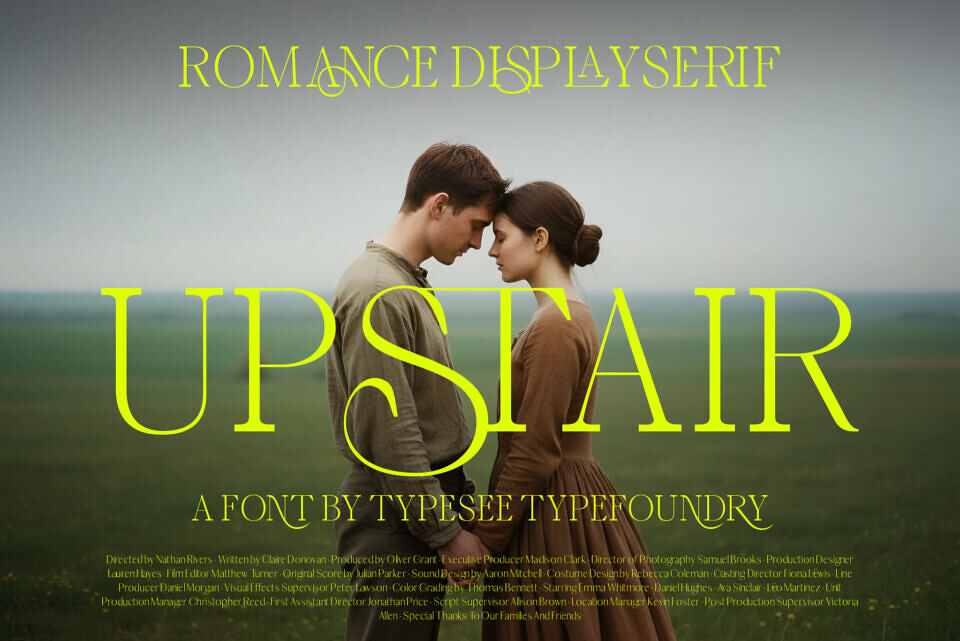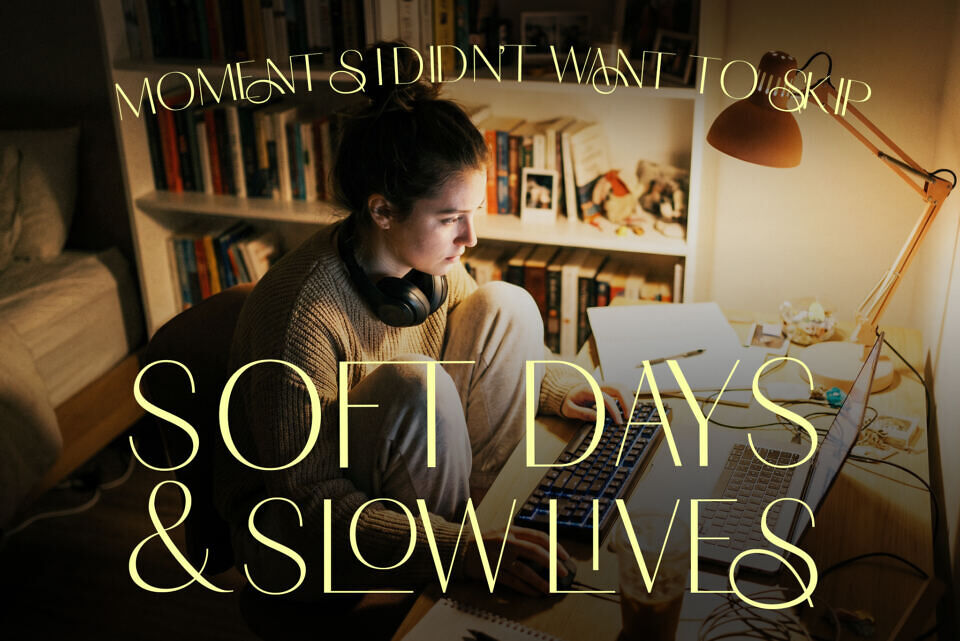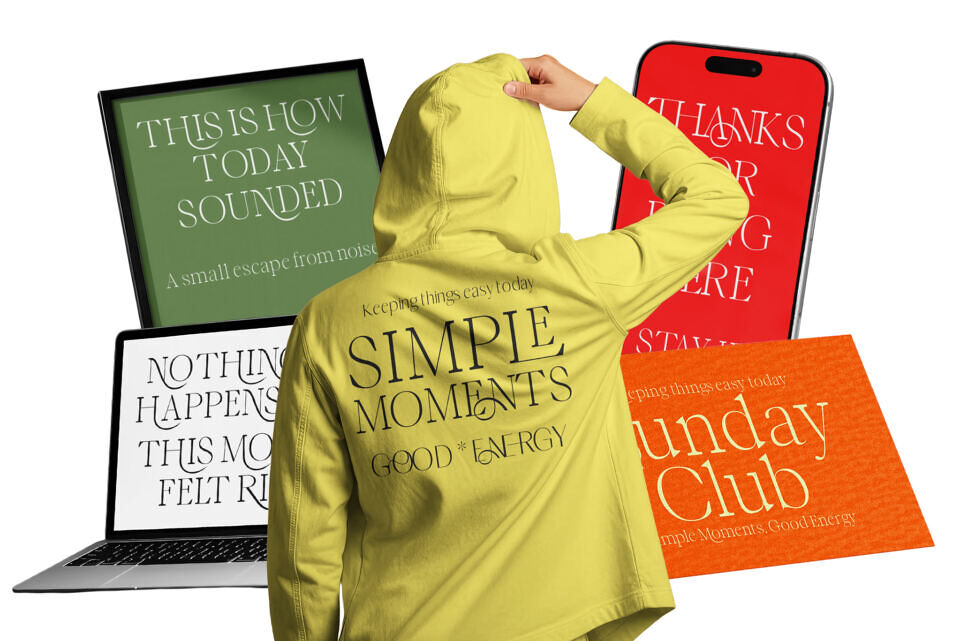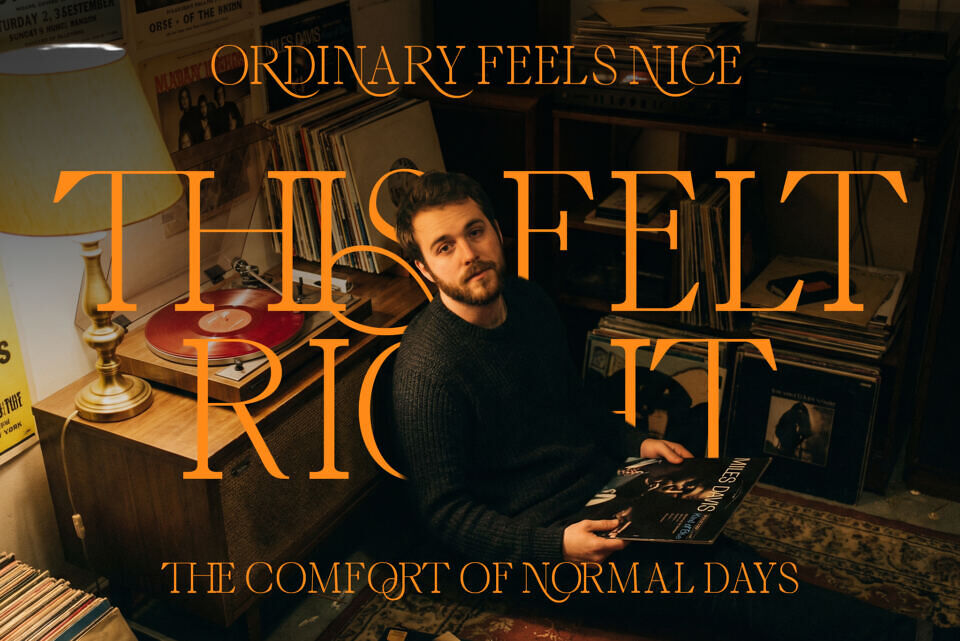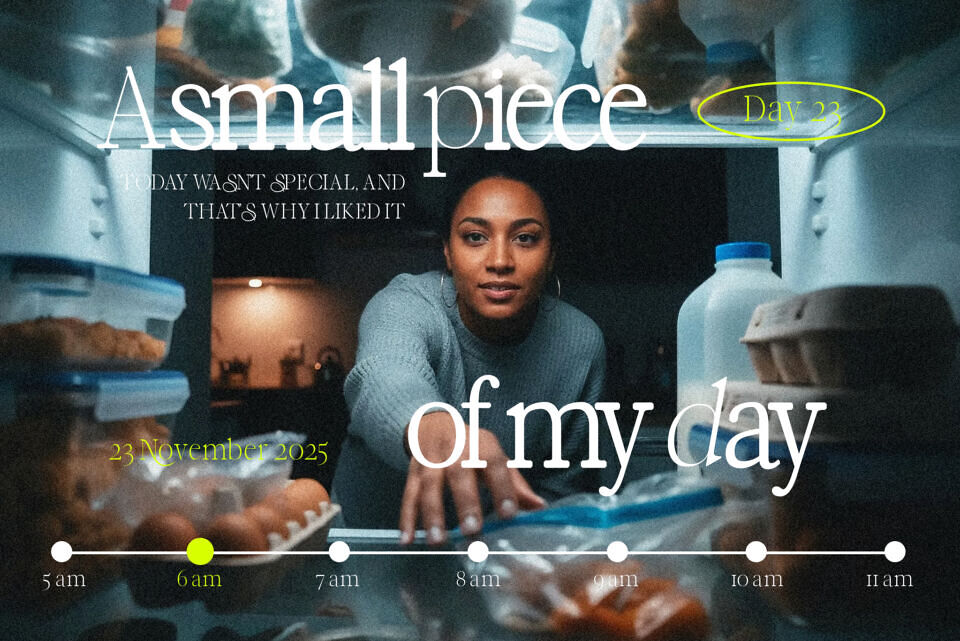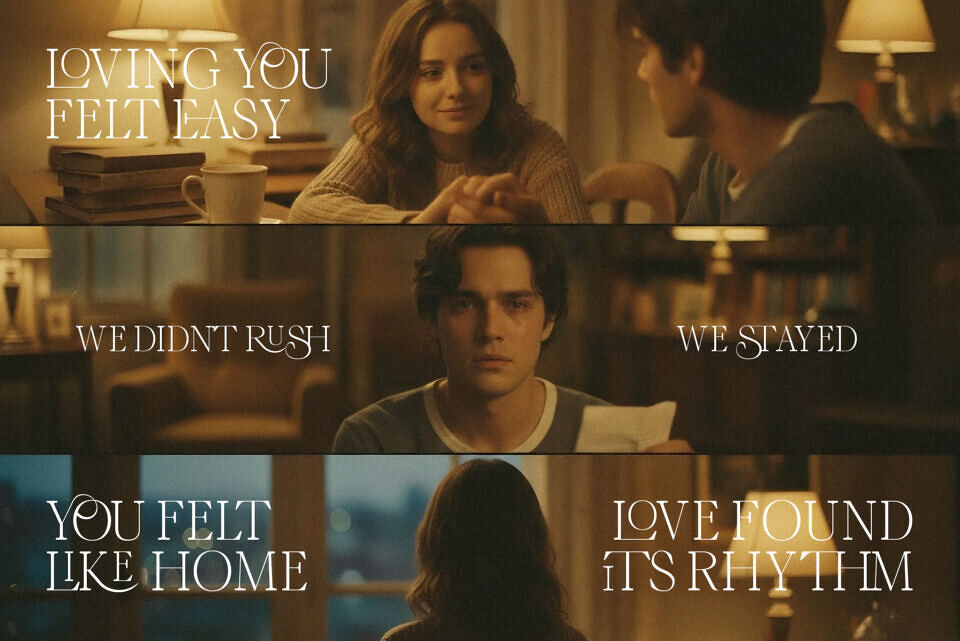
Upstair is a modern romance display serif/sans inspired by quiet emotions, soft moments, and cinematic storytelling. It blends classic serif elegance with subtle contemporary details, resulting in a typeface that feels warm, expressive, and visually refined.
Upstair is ideal for large formats like movie posters and fashion campaigns, where its elegant lines and curves create a poetic feel. As a display font, it excels in conveying mood and meaning, whether in romantic or everyday themes.
With a balance of modern simplicity and emotional depth, Upstair is perfect for designers seeking typography that tells a story. Its distinctive style shines in premium visuals, making it a great choice for branding, book covers, and lifestyle content.